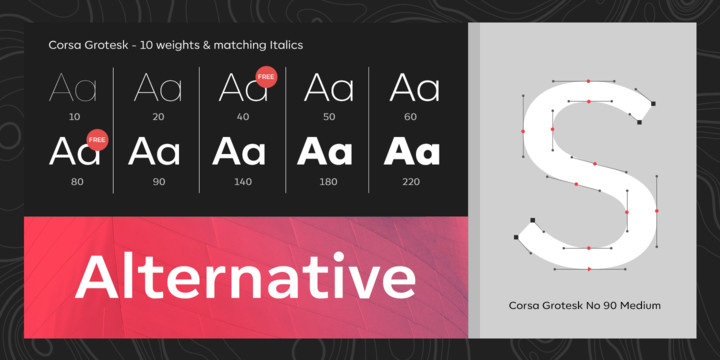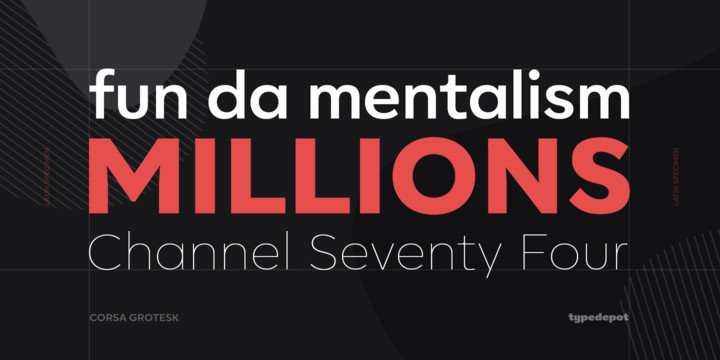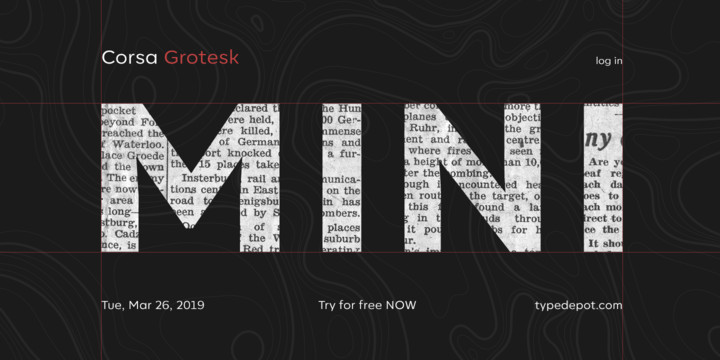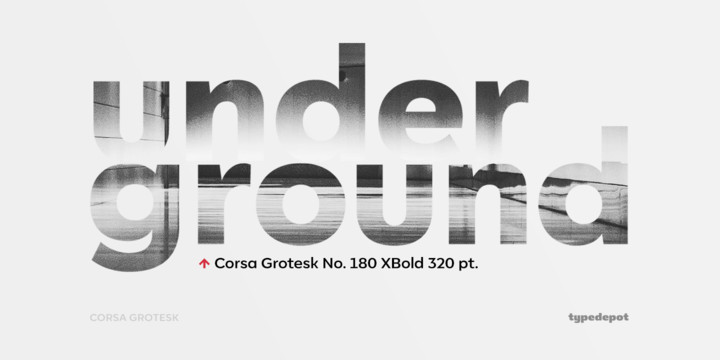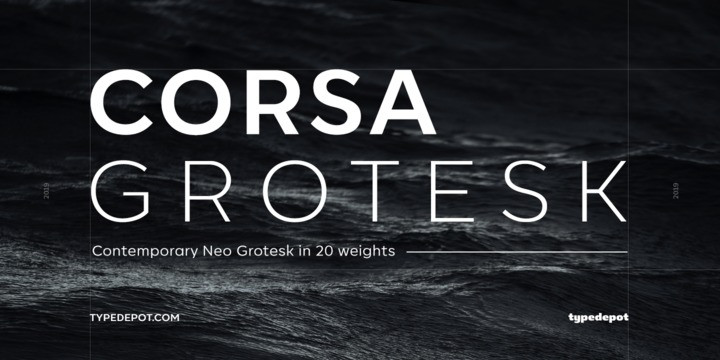
Corsa Grotesk Font Family
Dear All. Introducing the new sans serif font family. Corsa Grotesk designed and shared by Typedepot. Corsa Grotesk Font Family is another jewel in Typedepot’s expanding and original type library. It’s inspired by the all time classic Avenir but offers a more modern approach to the “Linear Sans” and “Grotesque” designs.
Corsa Grotesk is designed with geometric simplicity in mind with well balanced horizontal and vertical strokes. Generous proportions and x-height as well as the minimal contrast makes Corsa Grotesk great addition to the contemporary graphic designers toolkit. The type family comes 10 weights from Hairline to Black plus their, matching and absolutely fantastic true italics. The wide range of weights makes Corsa Grotesk suitable for both texts and headlines.